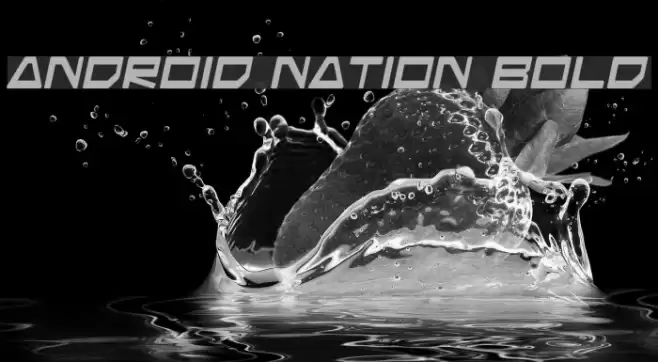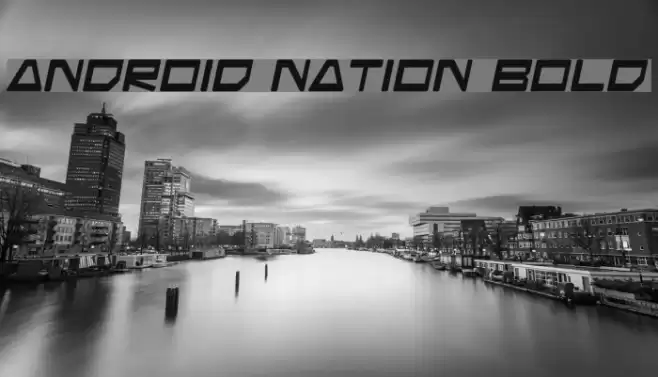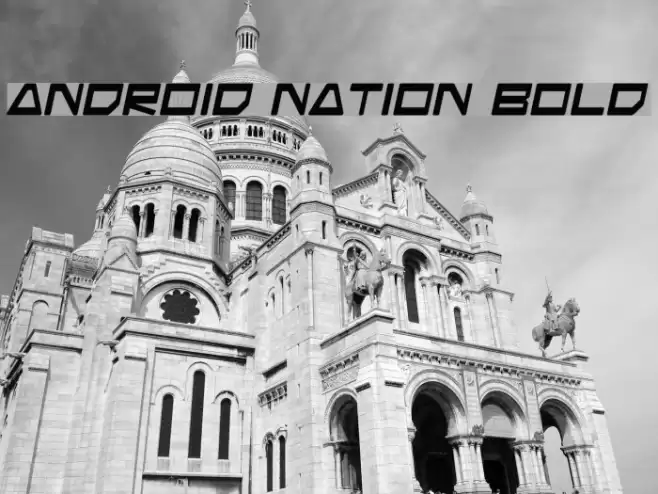
Android Nation Bold Font
Android Nation Bold Description
This font features a futuristic and angular design, characterized by its sharp edges and geometric shapes. The uppercase letters are bold and slightly condensed, giving a strong and impactful appearance. The lowercase letters maintain the same angular style, ensuring consistency throughout the typeface. The numerals and special characters follow the same design principles, making them easily recognizable and visually cohesive. This font is ideal for projects that require a modern and tech-savvy look, such as technology branding, video game titles, or sci-fi themed designs.
A futuristic, angular font with bold, geometric shapes from Uncategorized fonts.
- Proposed Projects: Ideal for technology branding, video game titles, and sci-fi themed designs.